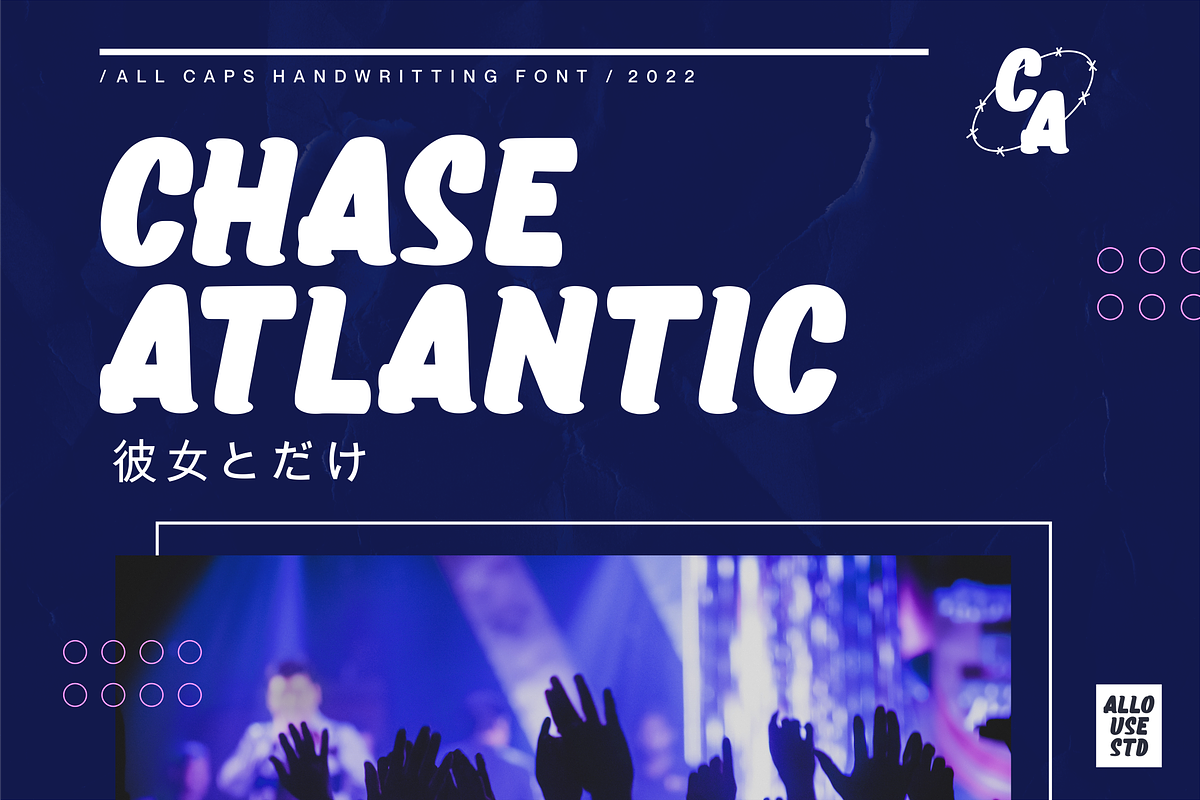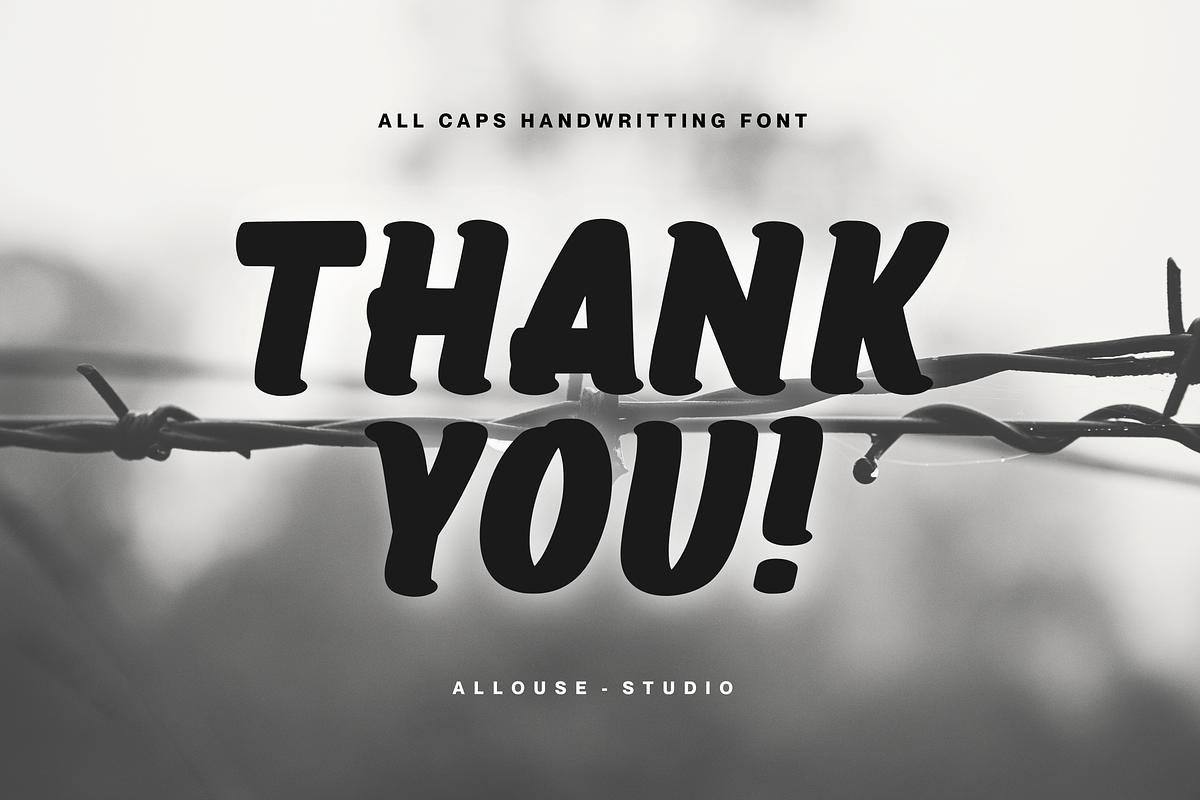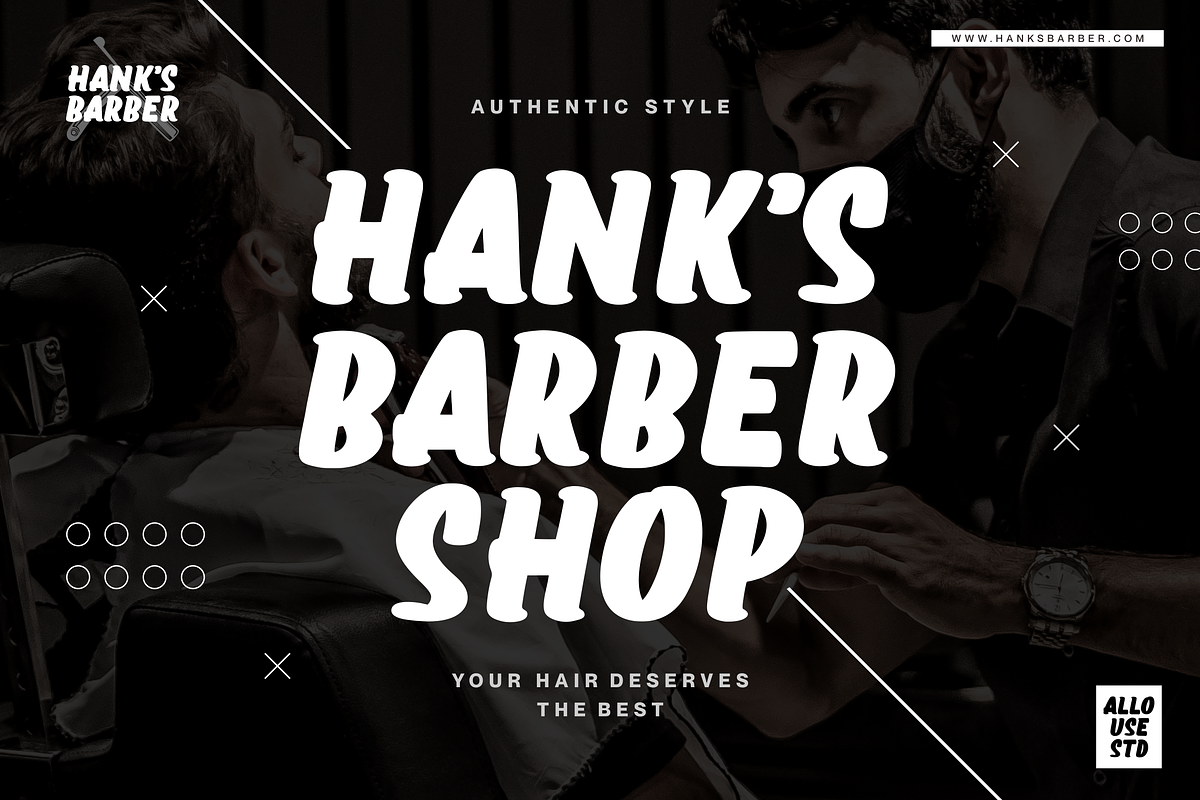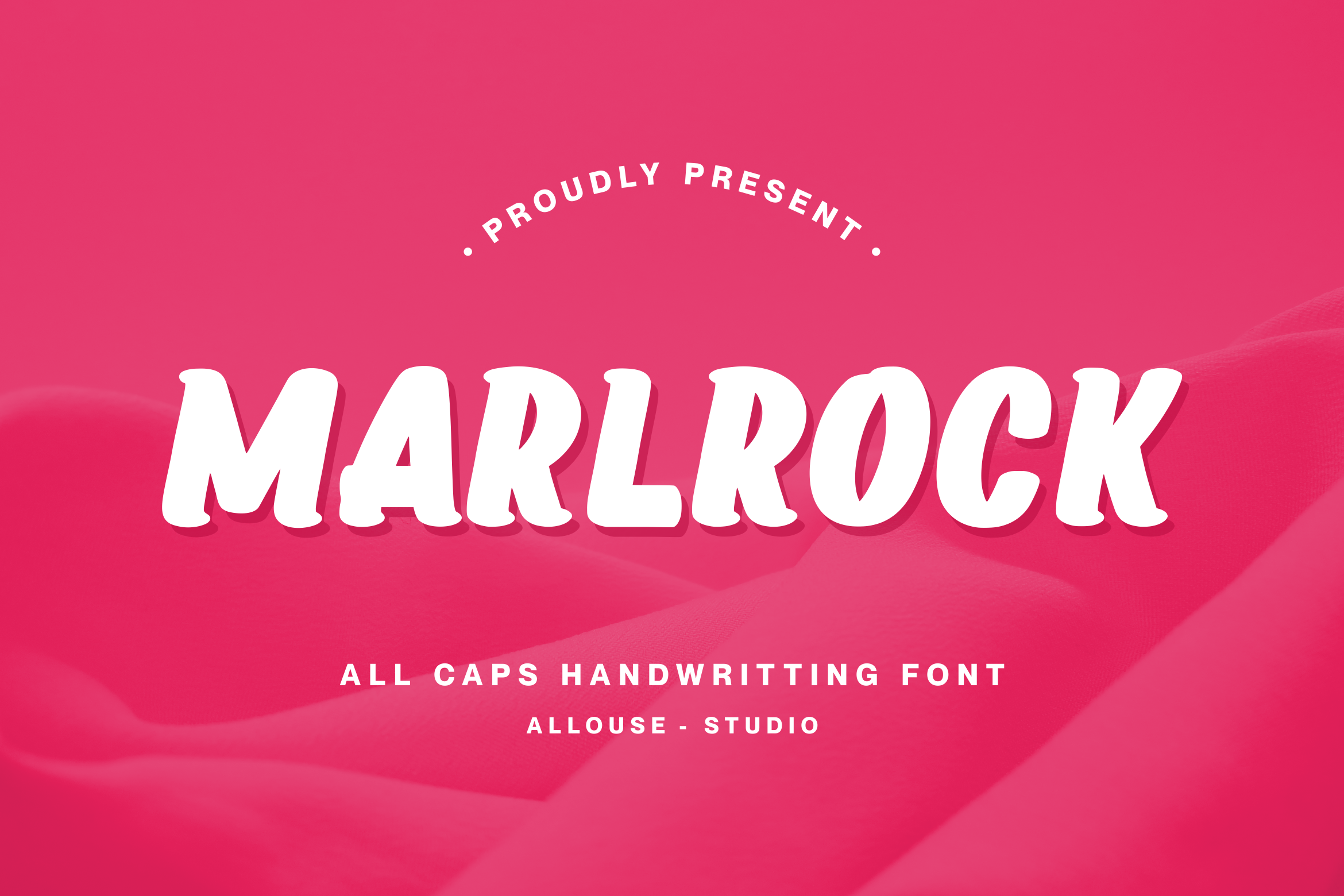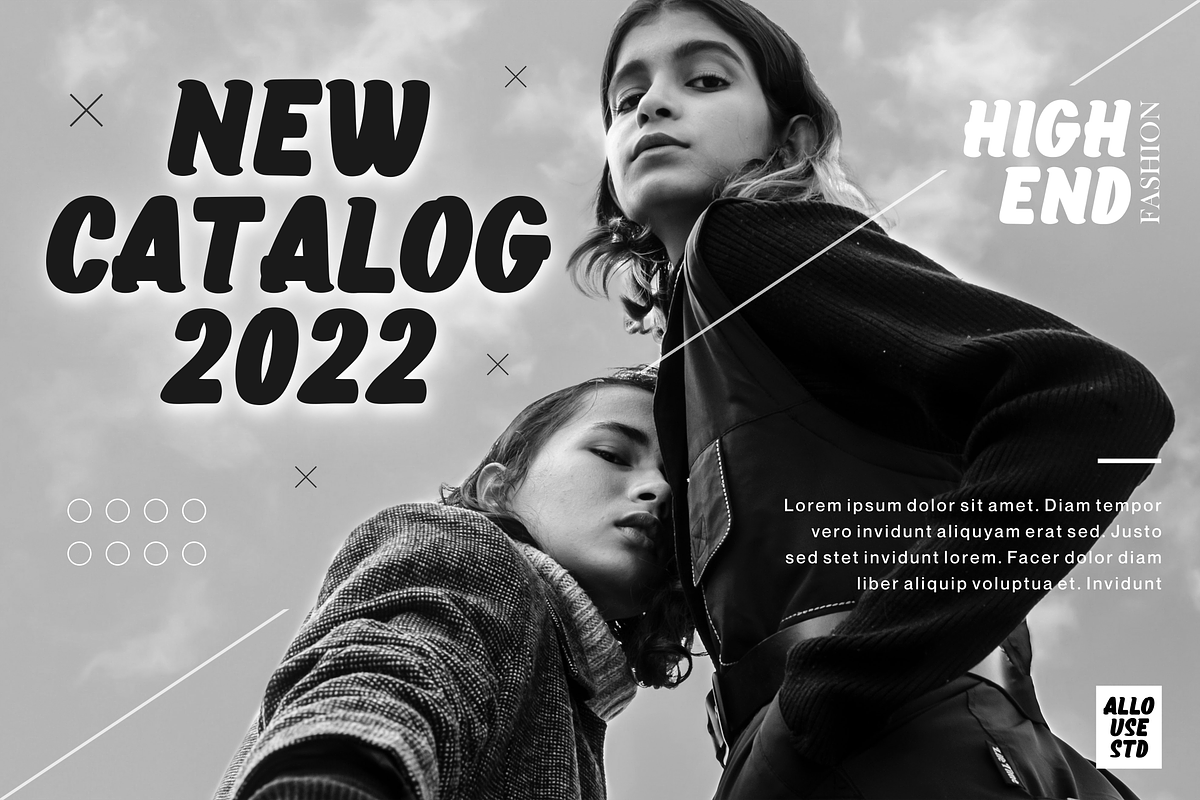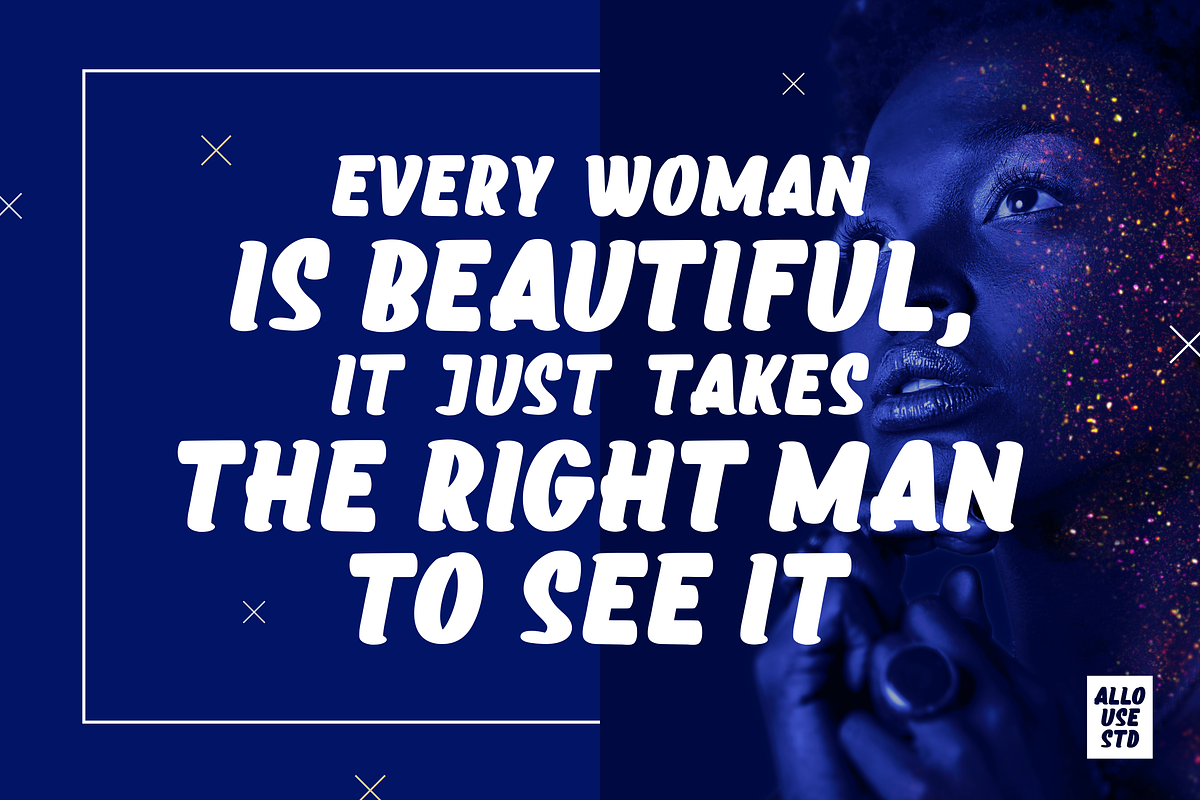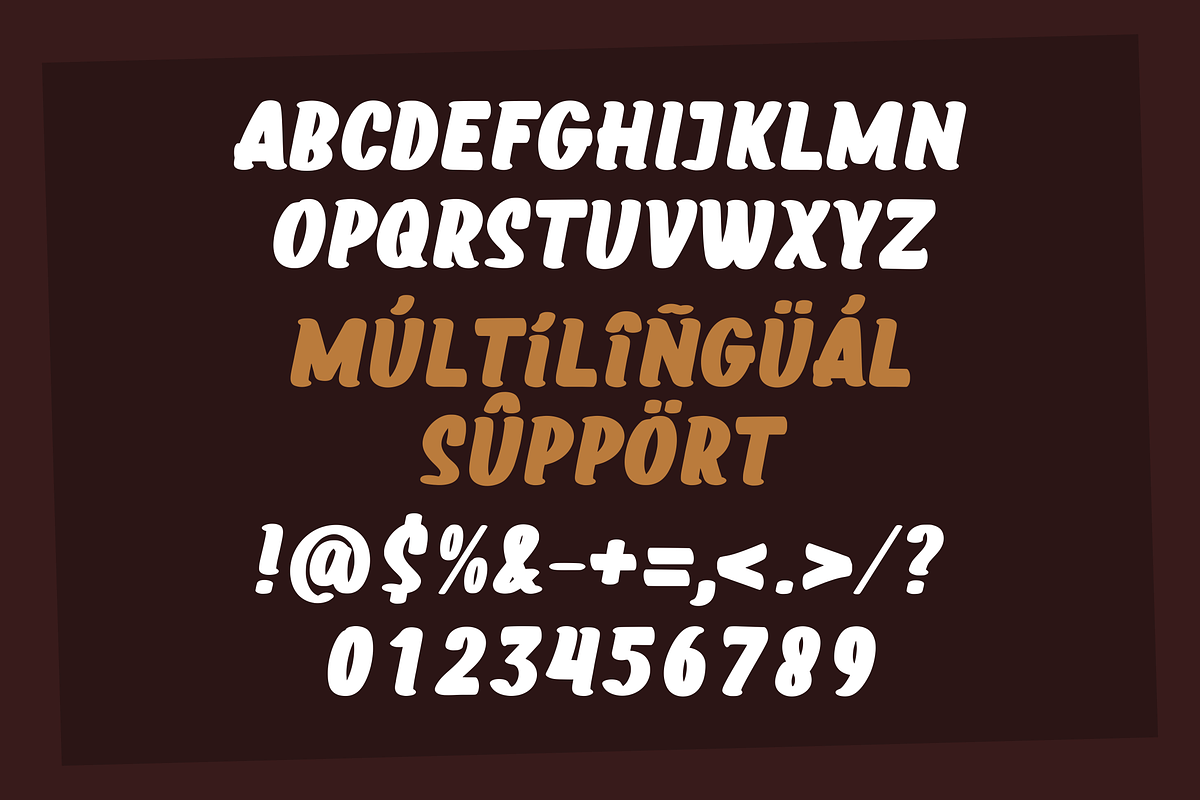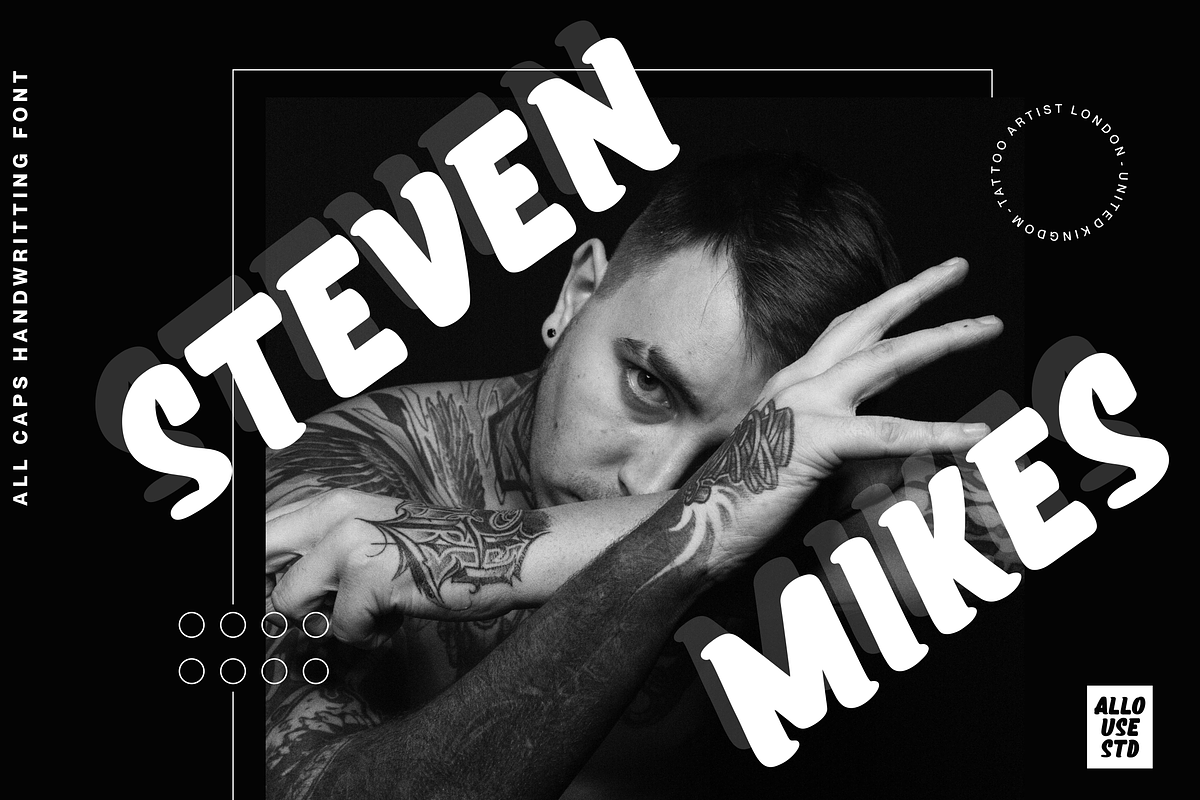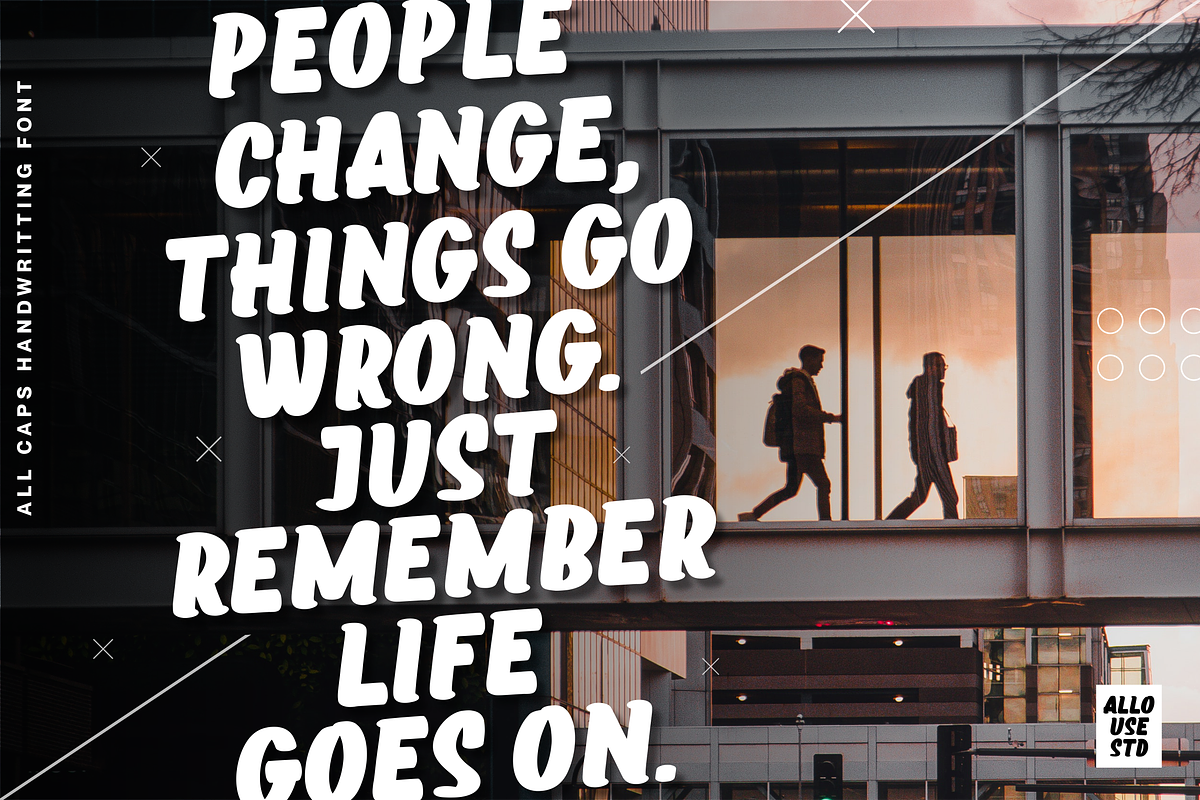
Marlrock All Caps Handwritting Font
Proudly Presenting, Marlrock A All Caps Handwritting Font.
Marlrock is perfect for any titles, logo, product packaging, branding project, megazine, social media, wedding, or just used to express words above the background.
Marlrock also come with Multi-Lingual Support.